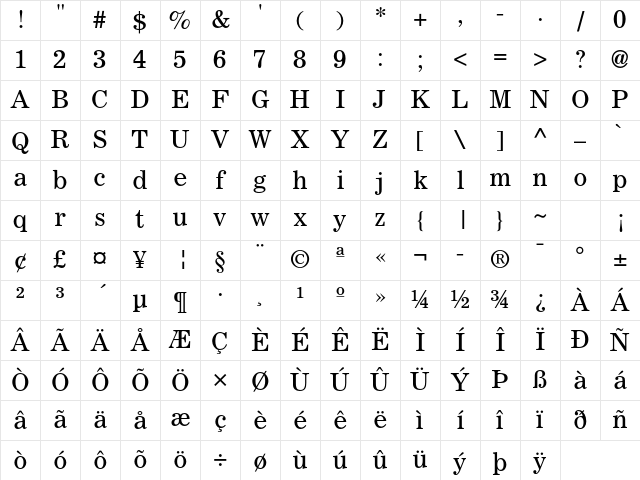
Corona LT Std Regular Free Font
Corona LT Std Regular
Designer: Chauncey H. Griffith
Design Context for Corona LT Std
Corona LT Std is a composed and adaptable typeface that performs quietly and consistently across a wide range of design contexts. Its slender proportions lend an understated elegance to any composition.
Pro Tip: Use Corona LT Std in both headline and body roles to test its range before committing to a single application.